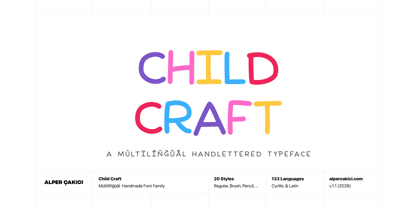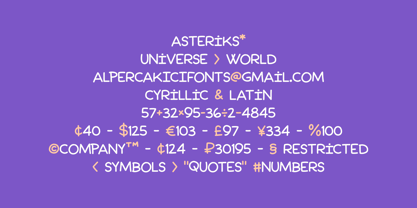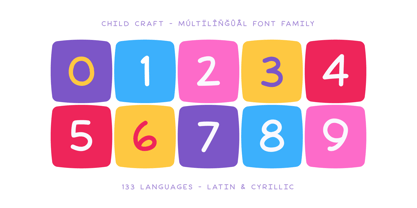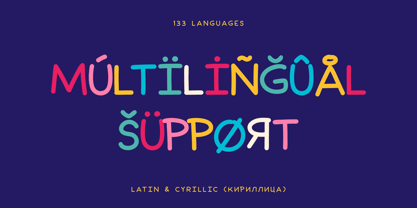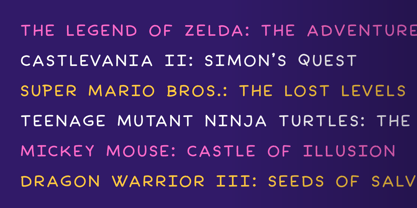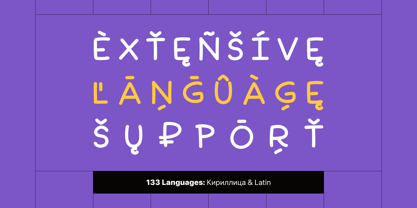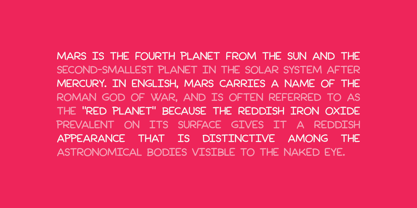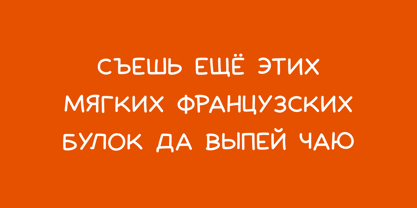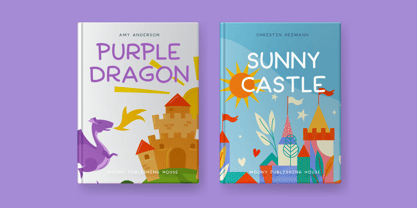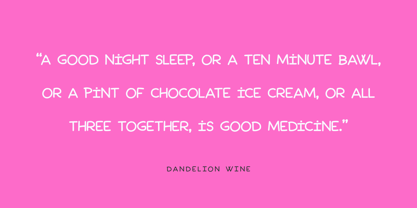
Child Craft
The Child Craft Font Family was designed by Alper Çakıcı and published by AlperCakici. Child Craft contains 1 styles.
Child Craft is a contemporary handmade font renowned for its impeccable kerning, making it a perfect choice for digital and print projects alike. With comprehensive support for the Cyrillic language, Child Craft enables seamless multilingual communication, thanks to its distinctive handmade style. What sets Child Craft apart is its fusion of classic proportions and a modern aesthetic, ensuring it stands out among other handmade fonts.
This versatile font boasts compatibility with 93 languages, including Belarusian, Russian, Afrikaans, Albanian, Asu, Basque, Bemba, Bena, Breton, Catalan, Chiga, Colognian, Cornish, Croatian, Czech, Danish, Dutch, Embu, English, Esperanto, Estonian, Faroese, Filipino, Finnish, French, Friulian, Galician, German, Gusii, Hungarian, Indonesian, Irish, Italian, Kabuverdianu, Kalenjin, Kamba, Kikuyu, Kinyarwanda, Latvian, Lithuanian, Lower Sorbian, Luo, Luxembourgish, Luyia, Machame, Makhuwa-Meetto, Makonde, Malagasy, Maltese, Manx, Meru, Morisyen, North Ndebele, Norwegian Bokmål, Norwegian Nynorsk, Nyankole, Oromo, Polish, Portuguese, Quechua, Romanian, Romansh, Rombo, Rundi, Rwa, Samburu, Sango, Sangu, Scottish Gaelic, Sena, Serbian, Shambala, Shona, Slovak, Soga, Somali, Spanish, Swahili, Swedish, Swiss German, Taita, Teso, Turkish, Upper Sorbian, Uzbek (Latin), Volapük, Vunjo, Walser, Welsh, Western Frisian, and Zulu.
Elevate your designs with Child Craft and experience the perfect blend of functionality and style across a multitude of languages and applications.